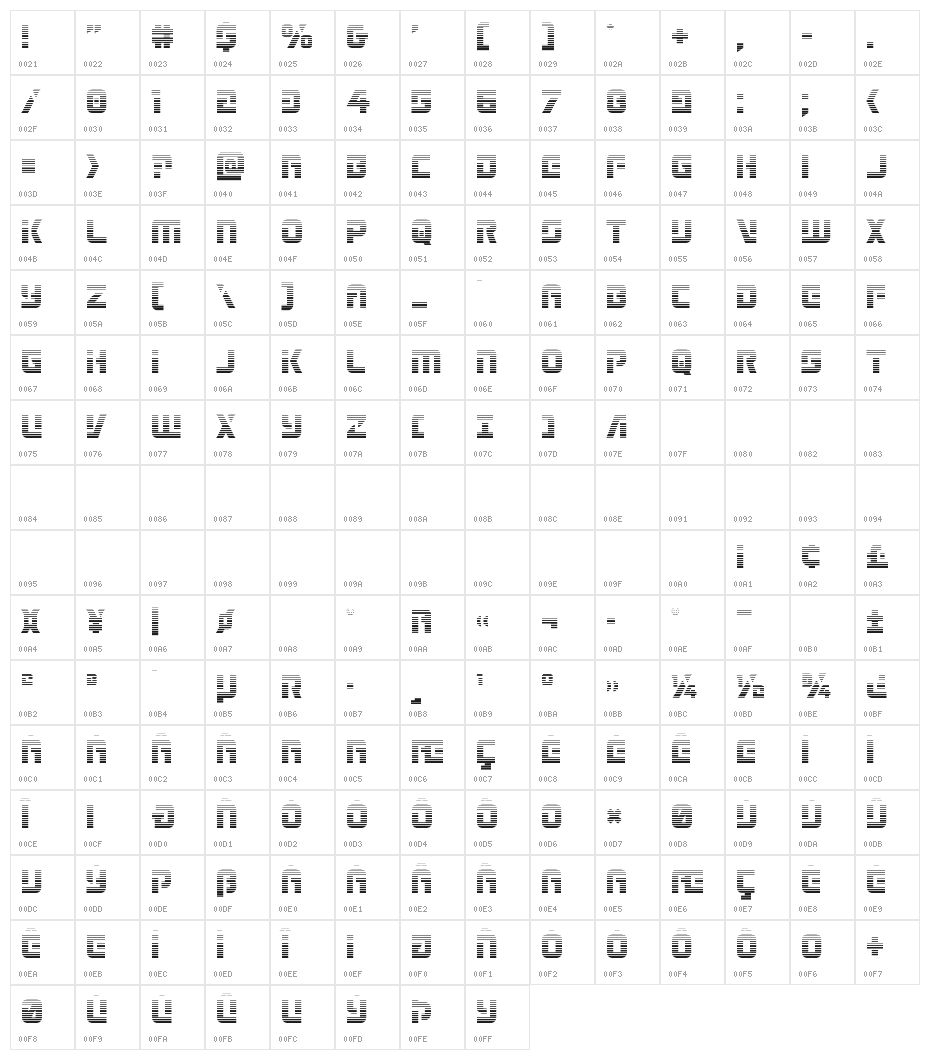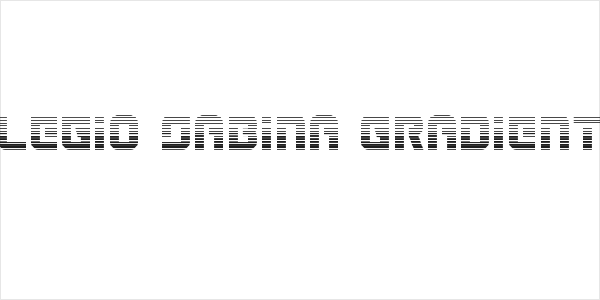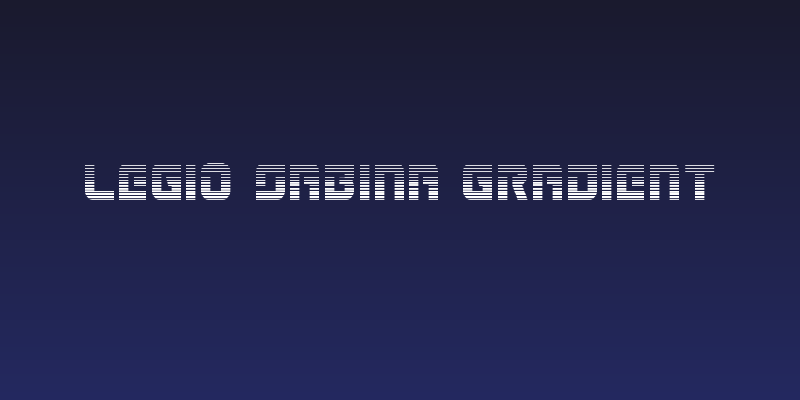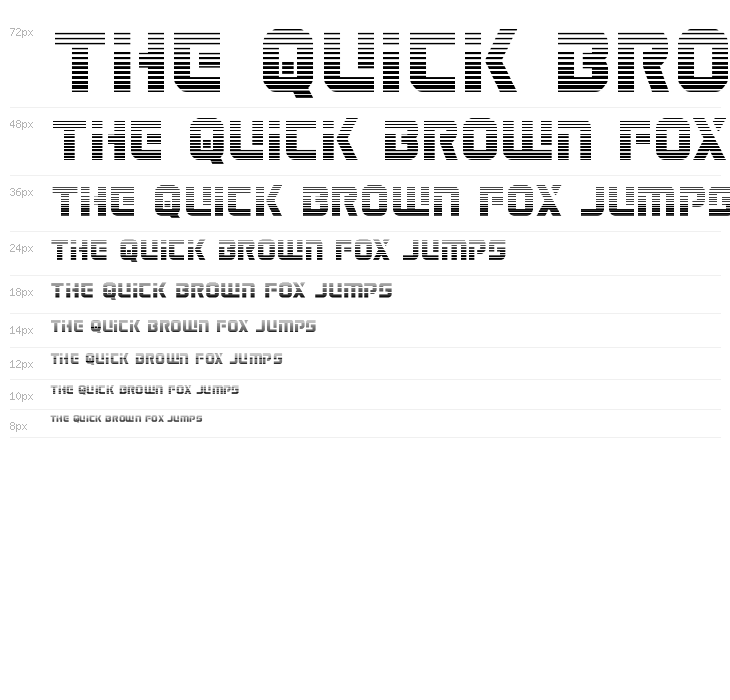
Legio Sabina Gradient Font
Legio Sabina Gradient Description
This font features a bold, modern design with a distinctive gradient effect created by horizontal lines. The characters are geometric and blocky, with a futuristic aesthetic that is both eye-catching and unique. The uppercase and lowercase letters maintain a consistent style, while the numerals and special characters complement the overall design. The use of parallel lines gives the font a sense of movement and depth, making it ideal for projects that require a dynamic and contemporary look.
| Proposed Projects | Ideal for branding, posters, digital media, and any project that requires a modern, futuristic touch. |